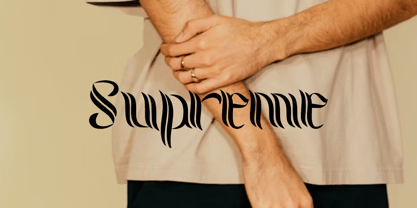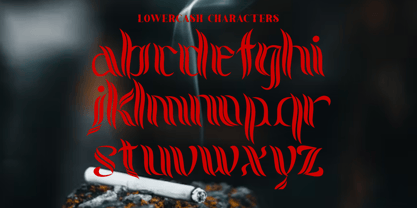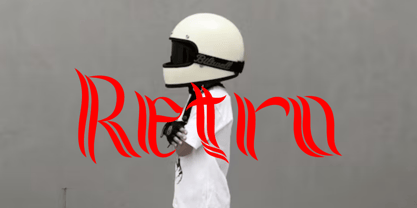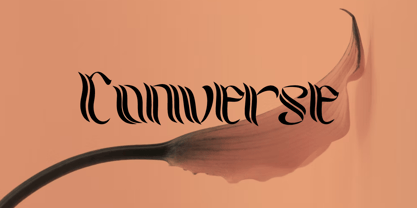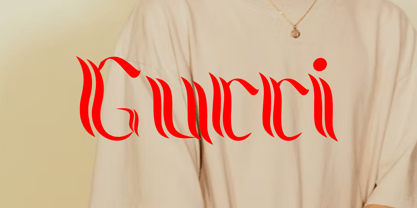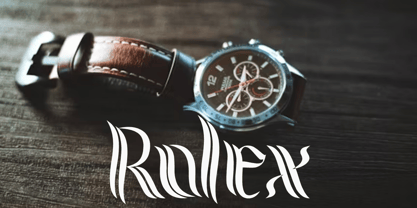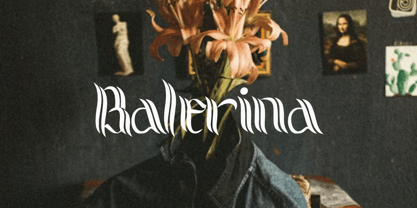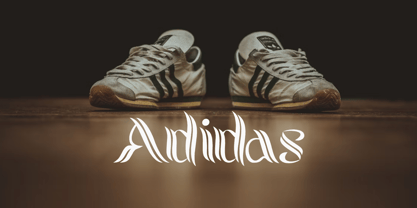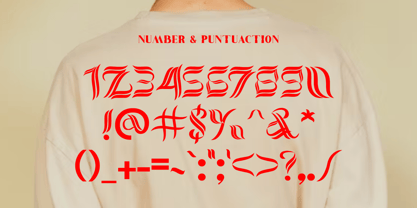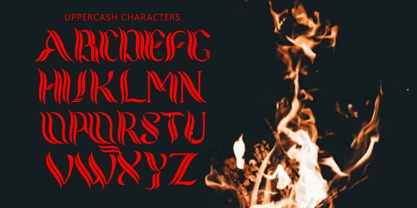
The Mytik Font Family was designed by Ta Siyo and published by Letternesia studio. Mytik contains 2 styles and family package options. More about this family
Mytik is a bold and mysterious display font inspired by ancient legends and mystical energy. With sharp curves and dramatic letterforms, Mytik evokes a sense of magic, fantasy, and untold stories. Its unique style makes it perfect for fantasy book covers, game titles, logos, and any design that seeks to spark imagination and wonder.